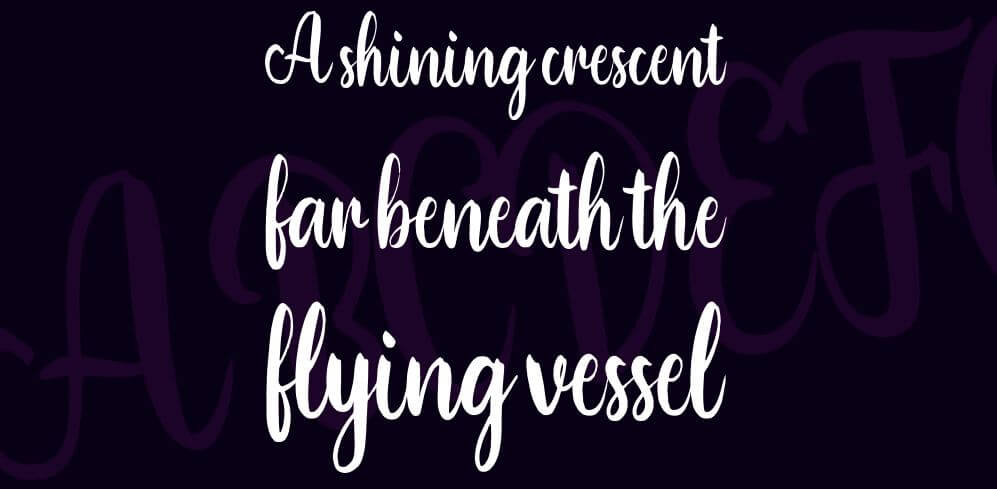
Bonillo Font
Bonillo Script Font is a new fresh & modern script with a handmade calligraphy style. Bonillo designed and shared by alit suarnegara. It’s a brush script type font created with a natural brush.
Style Of Bonillo Font